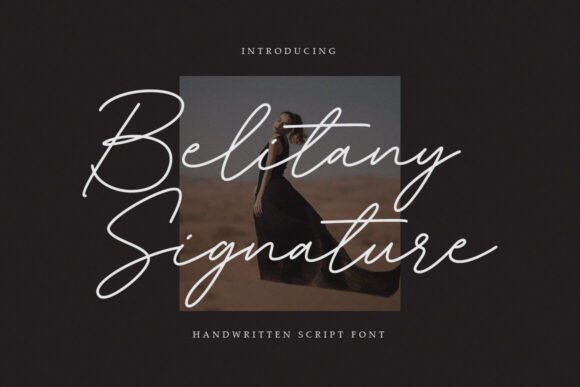
The Perfect Signature: Elevating Your Designs with the Belitany Signature Font
Have you ever stared at a blank sheet of paper, trying to come up with the perfect idea for a design project, only to be met with a blank mind? You know, that frustrating moment when nothing seems to spark creativity? Well, what if I told you there’s a solution to break through that creative block and elevate your designs to the next level?
Enter the Belitany Signature Font, a sleek and elegant handwritten font that brings a touch of sophistication to any design. Whether it’s for logos, invitations, or marketing materials, this font adds an exclusive and refined flair that’s sure to leave a lasting impression. With its unique signature style, the Belitany Signature Font is a valuable asset for designers looking to give their projects a personal and distinctive touch.
Belitany Signature Font Key Features
• Font Style: Elegant Script Font with a unique, hand-written feel
• Character Set: Supports Latin, Cyrillic, and Greek alphabets, making it suitable for international use
• Unique Characteristics: Includes ligatures, swashes, and flourishes to create a personal and unique touch
Belitany Signature Font Review
I recently had the chance to work with the Belitany Signature Font, and here’s my honest review:
The Belitany Signature Font is a beautiful, elegant script font that’s perfect for creative projects and branding. I love how it adds a touch of sophistication to any design. The font is highly customizable, with a wide range of weights and styles to choose from.
• Beautiful, elegant script design
• Highly customizable with various weights and styles
• Perfect for creative projects and branding
While the Belitany Signature Font is a great choice for many projects, it does have some limitations. The font can be a bit too ornate for some designs, and the customization options can be overwhelming for beginners. Additionally, the font may not be suitable for projects that require a more modern or minimalist aesthetic.
• Can be too ornate for some designs
• Customization options can be overwhelming for beginners
• Not suitable for modern or minimalist designs
Overall, I think the Belitany Signature Font is a great choice for designers who want to add a touch of elegance to their projects. While it may not be suitable for every design, it’s a versatile font that can be used in a wide range of creative applications.
To get the most out of the Belitany Signature Font, try using it in combination with other elegant fonts and bold colors.
Use the font to create eye-catching headings and titles, and pair it with a clear and concise body text.
The Belitany Signature Font is ideal for:
Business cards and marketing materials
Brand logos and identity
Any project where a touch of elegance and sophistication is needed